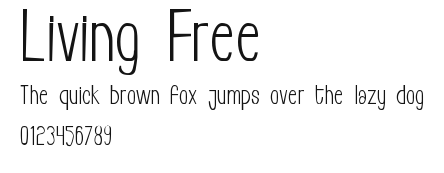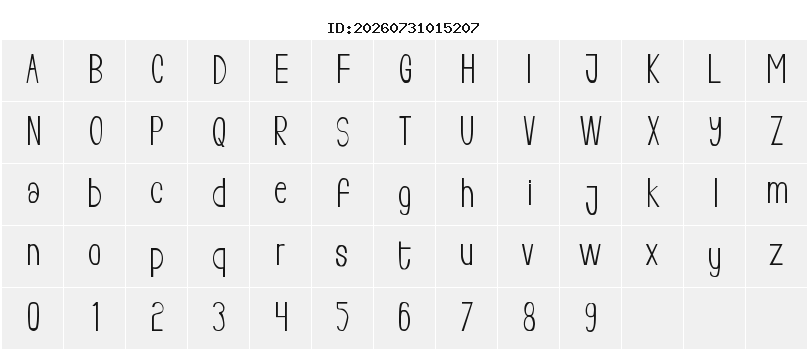
Living Free Preview
• Font Name: Living Free
• Font ID: Living Free
• Full Font Name: Living Free
About Living Free.ttf
Living Free.ttf is a modern, elegant sans-serif font designed for ultimate readability and visual harmony. Perfect for branding, headlines, web design, and print materials.